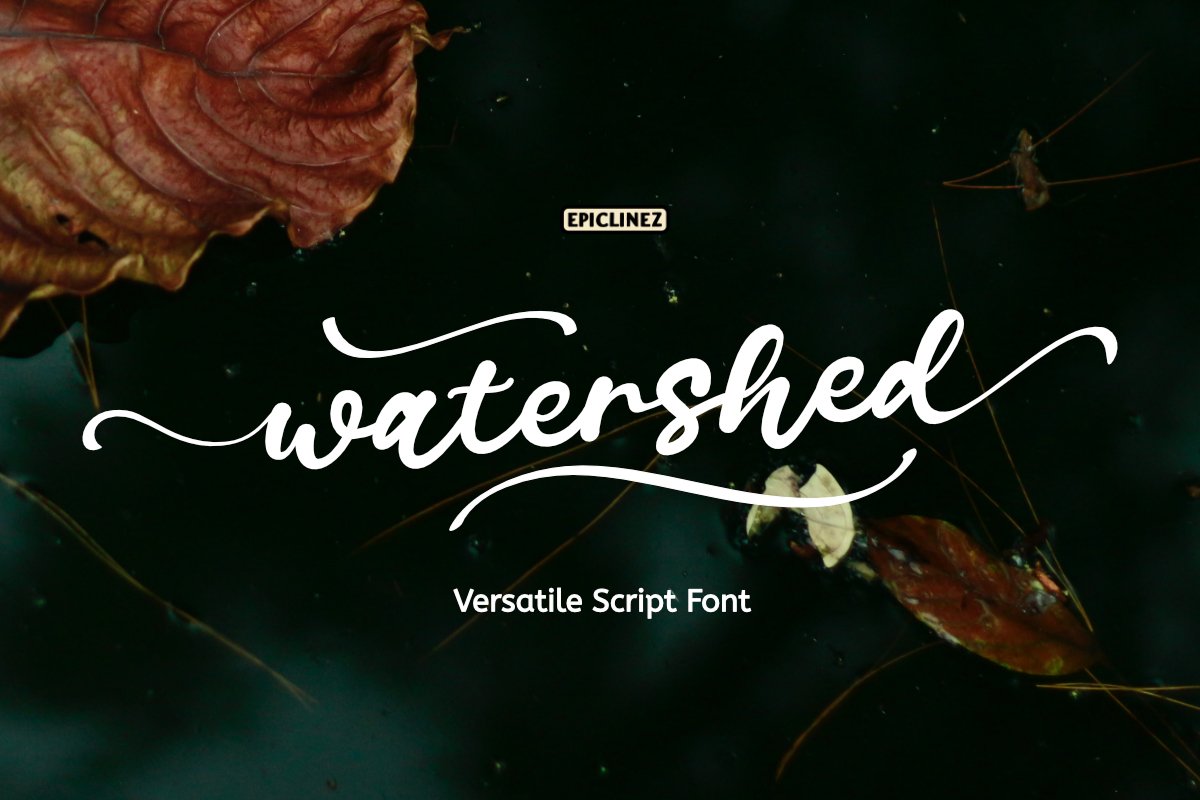
Watershed Script
Watershed is a stylish script font. It has Open Type features such as Stylistic Sets, Ligatures, and Swashes. This font is also multilingual and PUA encoded. Use it for any design projects that require a charming appearance!